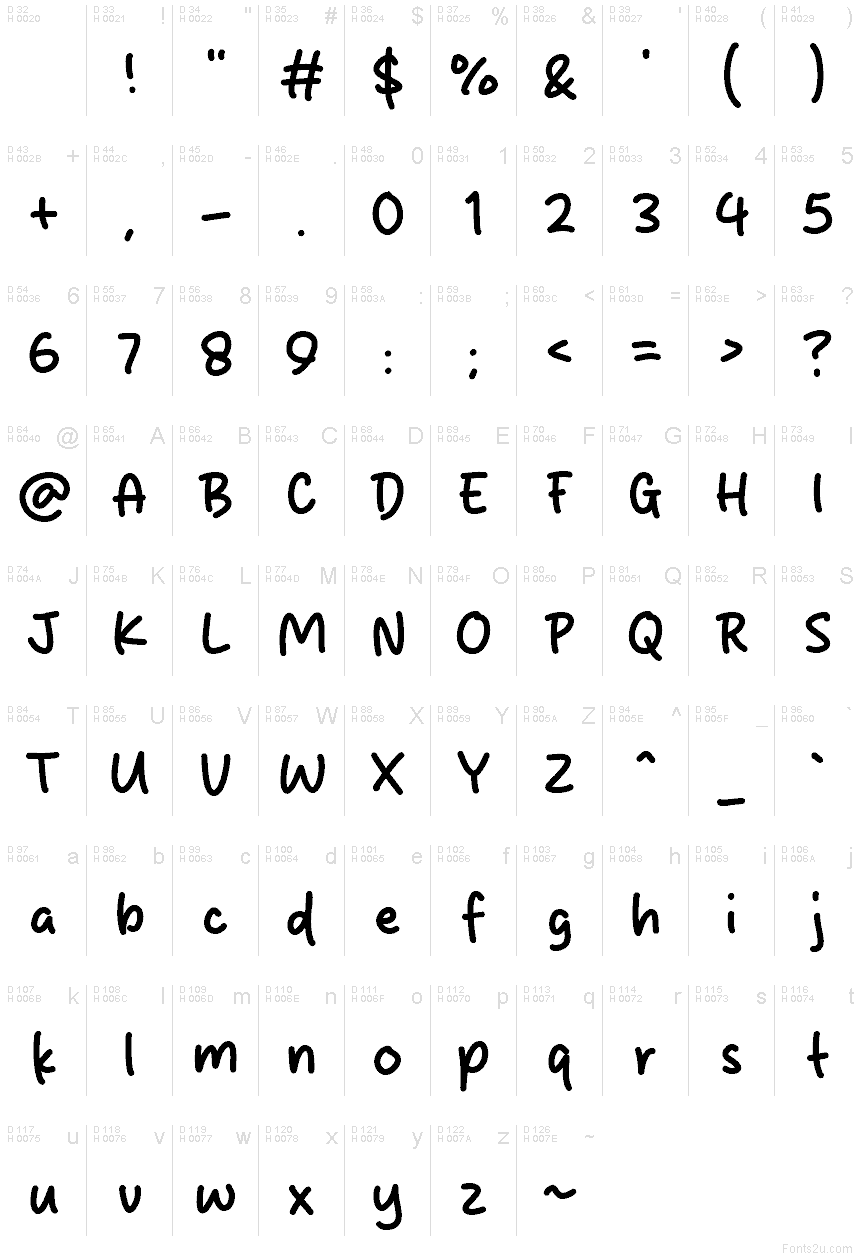
Sticky Bread
Sticky Bread font by MJType is a free handwritten typeface with the easy warmth of a marker note on a café chalkboard. Its rounded strokes, slightly wobbly lines, and smooth curves feel soft and friendly, like fresh dough that’s just been shaped. The letters sit close without feeling cramped, giving text a cozy, welcoming texture that still reads clearly at a glance.
Using Sticky Bread, you can add a human touch to bakery branding, kids’ books, classroom posters, handmade product labels, social media graphics, and casual invitations. This free font shines when you want copy to feel chatty and approachable rather than polished and stiff. For a clean, balanced look, pair Sticky Bread with a simple sans serif for body text and keep it a size or two larger for headlines so its playful rhythm comes through.